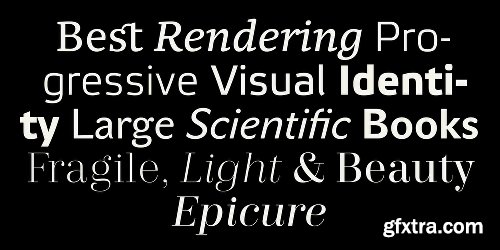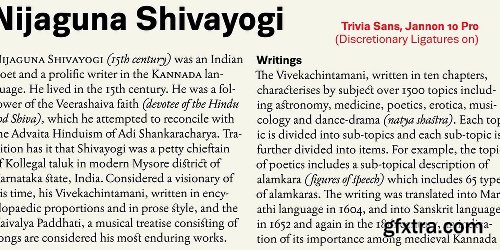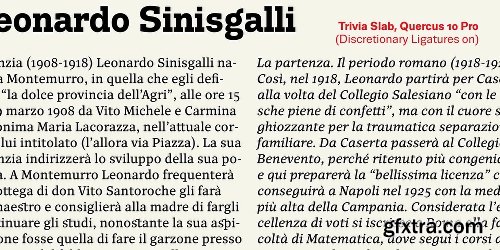
The Best of Stormtype Font Bundle - 22 Fonts
František Štorm started Storm Type Foundry in the hopes that he would be able to restore the classical values of typography that often times don’t get translated into the digital world. He’s been doing just that for over two decades now—producing timeless typefaces that transcend trends and defy contemporary norms—and so in celebration of this milestone, he’s put together a collection of 22 of his bestselling fonts that have stood the test of time.
Including weights from his bestselling typefaces Etelka, Quercus 10 and Trivia Serif, The Best Of Storm Type Bundle is a fantastic collection of beautiful text fonts, most of which offer extended language support. František also included his decorative script face Splendid alongside Header—an aptly named font intended for headline use—bringing some range and variety into the bundle.
This bundle would be a wonderful addition to any type library, but it is a must-have for anyone who works with small publishing projects on both print and web, ?books, magazines, brochures, invitations and posters.